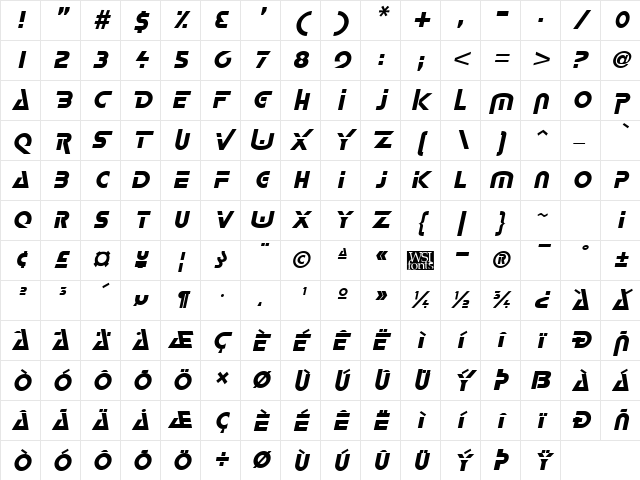
Logash kursiv
Style: kursiv
Design Context for Logash
Logash is a composed and adaptable typeface that performs quietly and consistently across a wide range of design contexts. The slanted form adds forward momentum and visual energy.